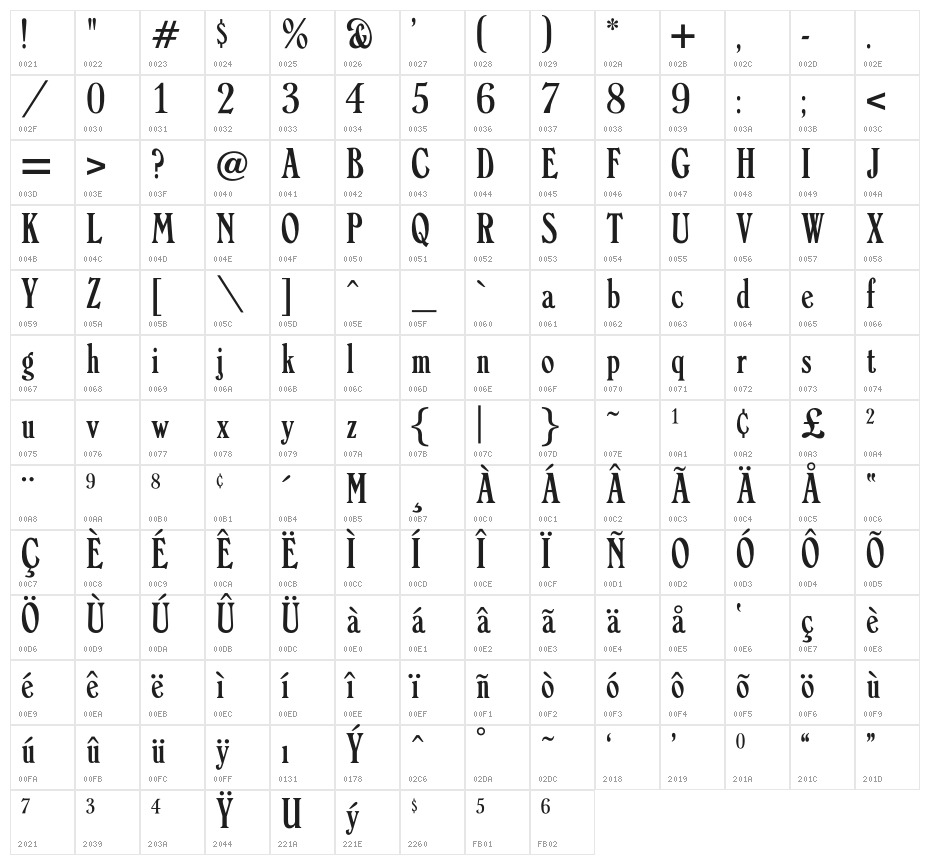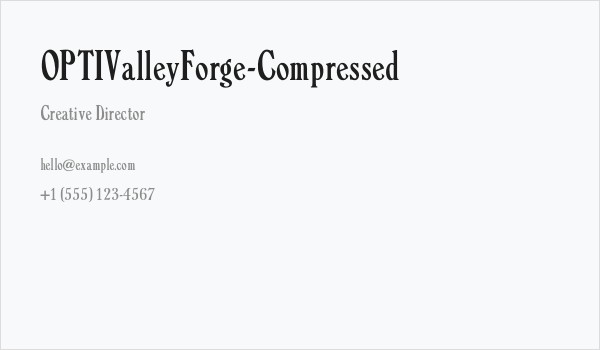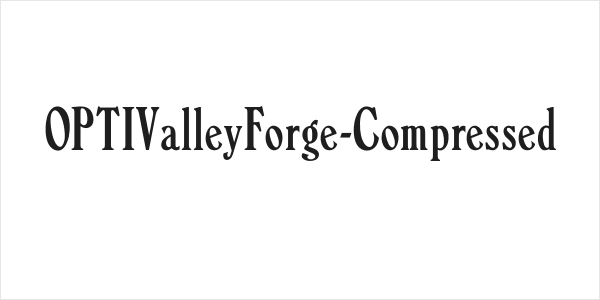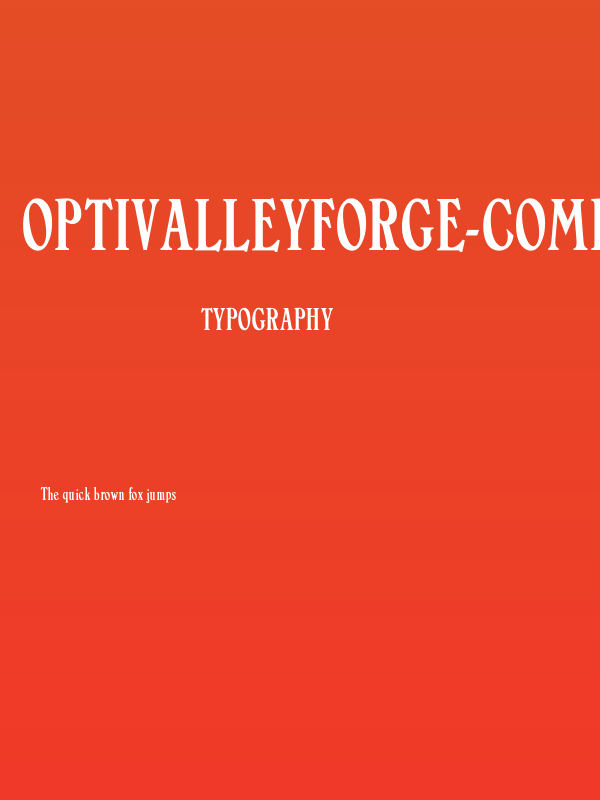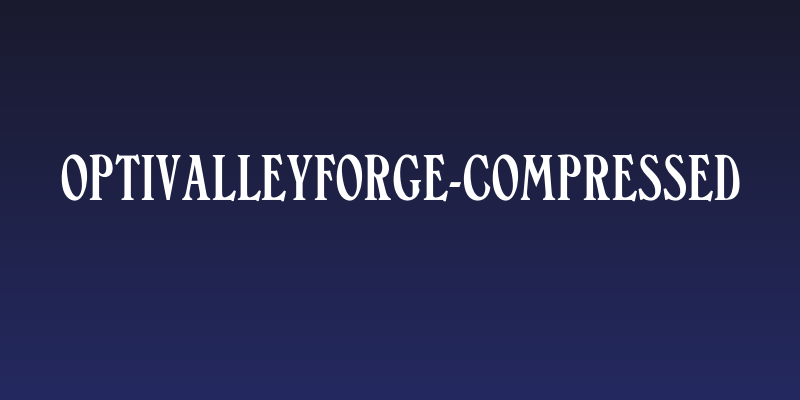
OPTIValleyForge-Compressed Font
OPTIValleyForge-Compressed Description
This font features a bold and dramatic style with high contrast between thick and thin strokes, giving it a striking and authoritative appearance. The serifs are pronounced and slightly curved, adding a touch of elegance and sophistication. The uppercase letters are tall and commanding, while the lowercase letters maintain a consistent style with a slight flair. The numerals are robust and clear, ensuring readability. Special characters are designed with the same attention to detail, making them cohesive with the rest of the font. Overall, this font exudes a vintage charm while maintaining a modern edge, making it versatile for various design applications.
| Use Case | Headlines, Logos, Editorial design |
| Proposed Projects | Ideal for use in headlines, branding, posters, and editorial design where a strong, classic presence is desired. |